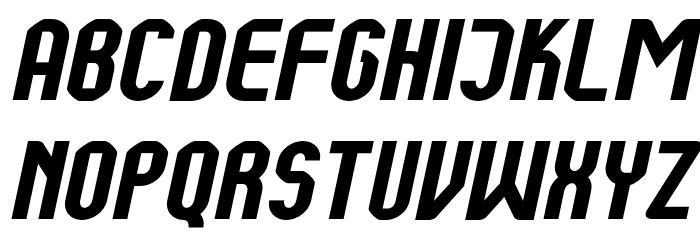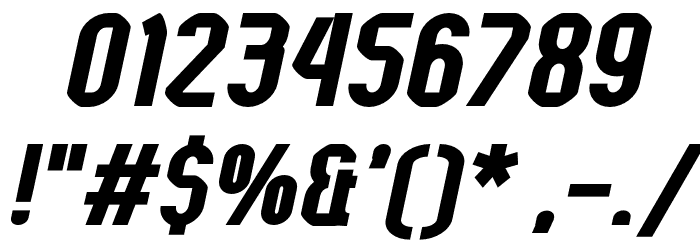
Kumba Bold Italic Font
This font features a bold and italicized style, characterized by its strong, dynamic slant and thick strokes. The letters are slightly condensed, giving a compact appearance while maintaining readability. The uppercase and lowercase letters maintain a consistent style, with a modern and sleek aesthetic. The numerals are clear and bold, matching the overall style of the alphabet. Special characters are well-defined, adding versatility to the font. The design is suitable for making a strong visual impact, with its high contrast and energetic feel.
A bold, italicized font with a modern, dynamic slant and high contrast.
- Proposed Projects: Ideal for branding, headlines, posters, and any design requiring a bold statement.